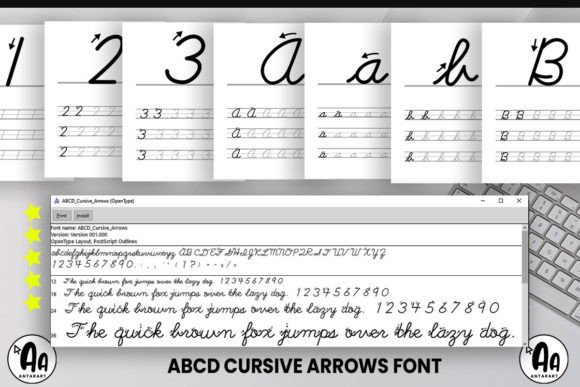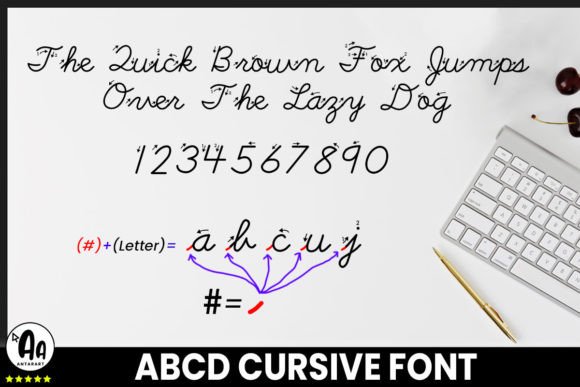
Abcd Cursive Arrows Font
About Abcd Cursive Arrows Font
ABCD Cursive Arrows Font
This display font helps you create thousands of worksheets using any software. It is a great learning resource for those who want to learn or teach Cursive handwriting enjoyably and interactively.